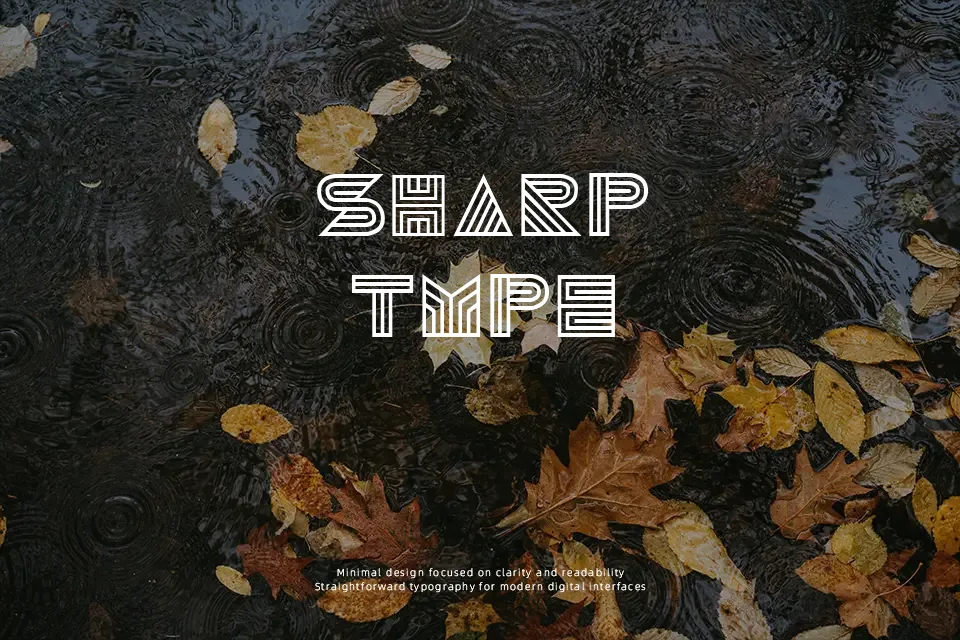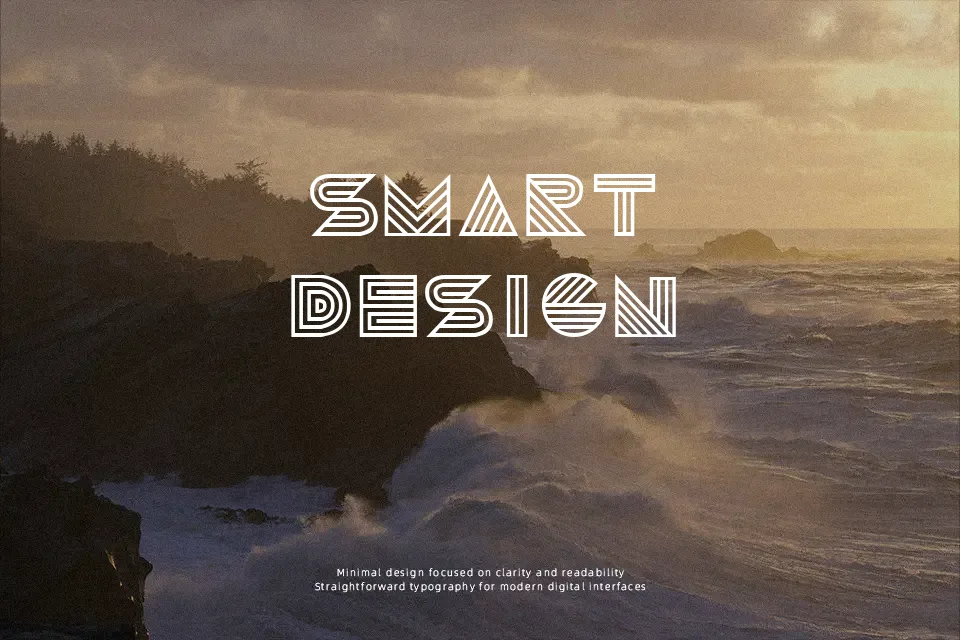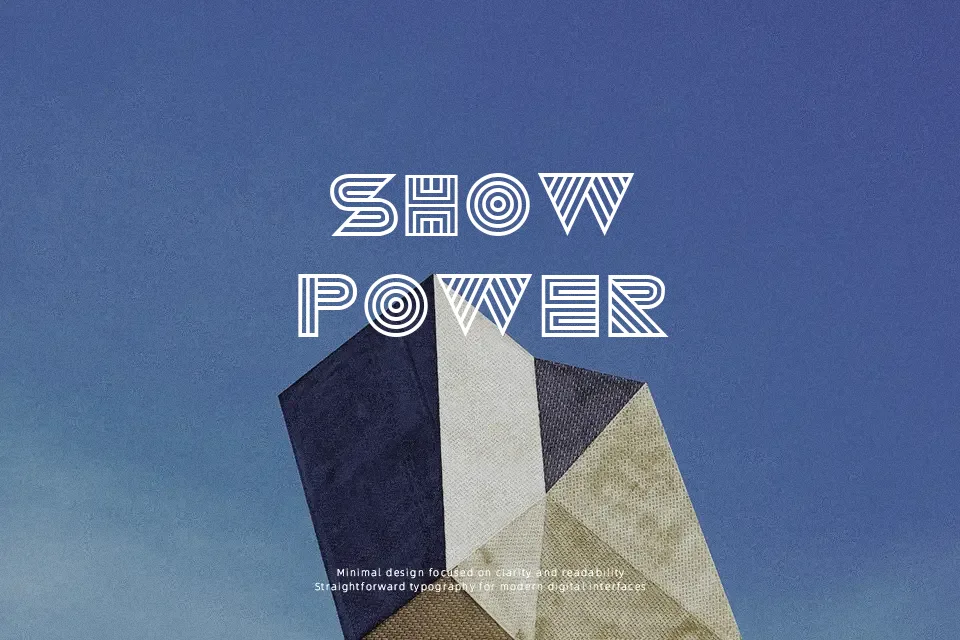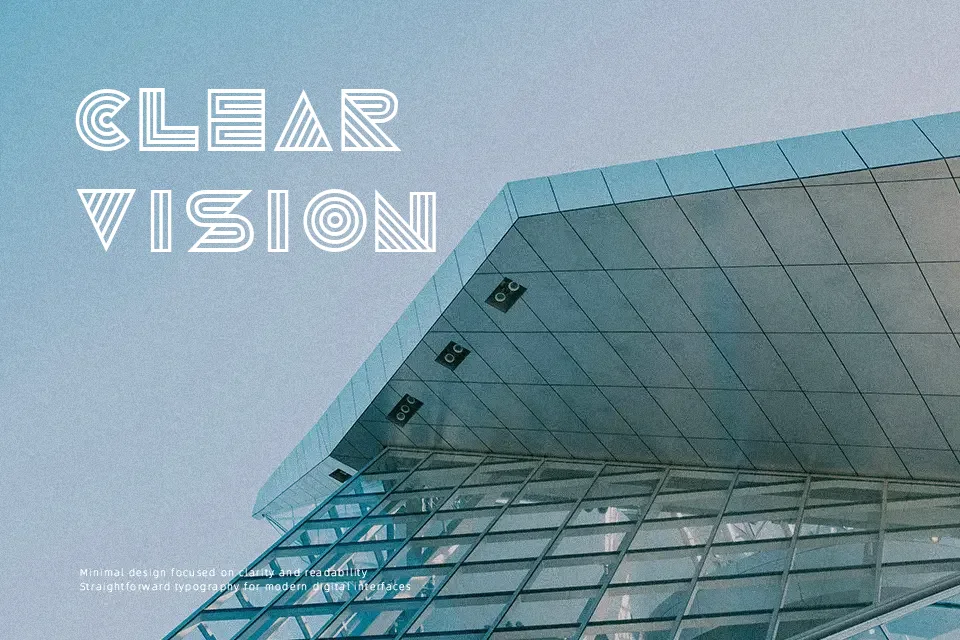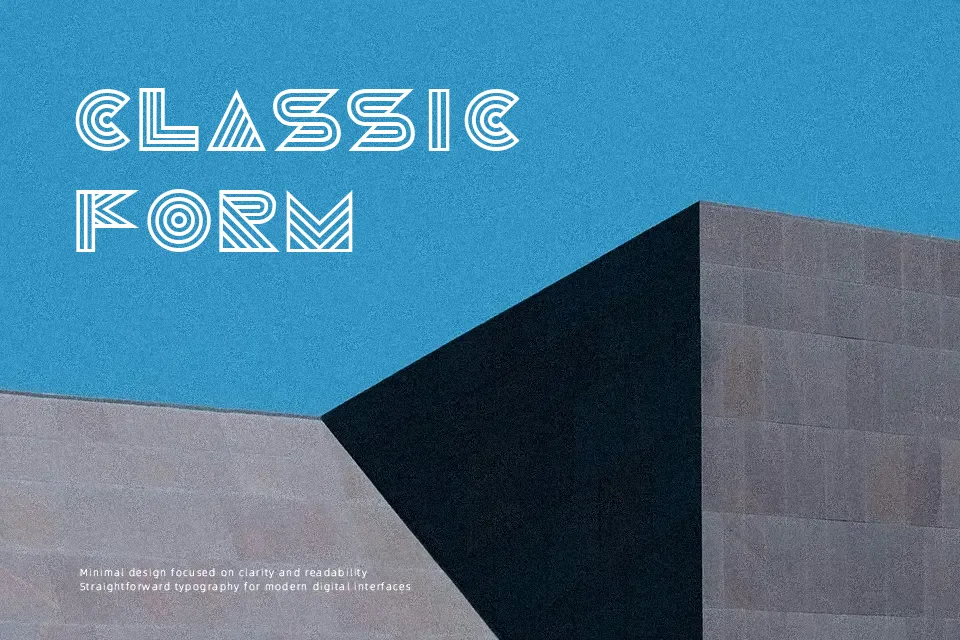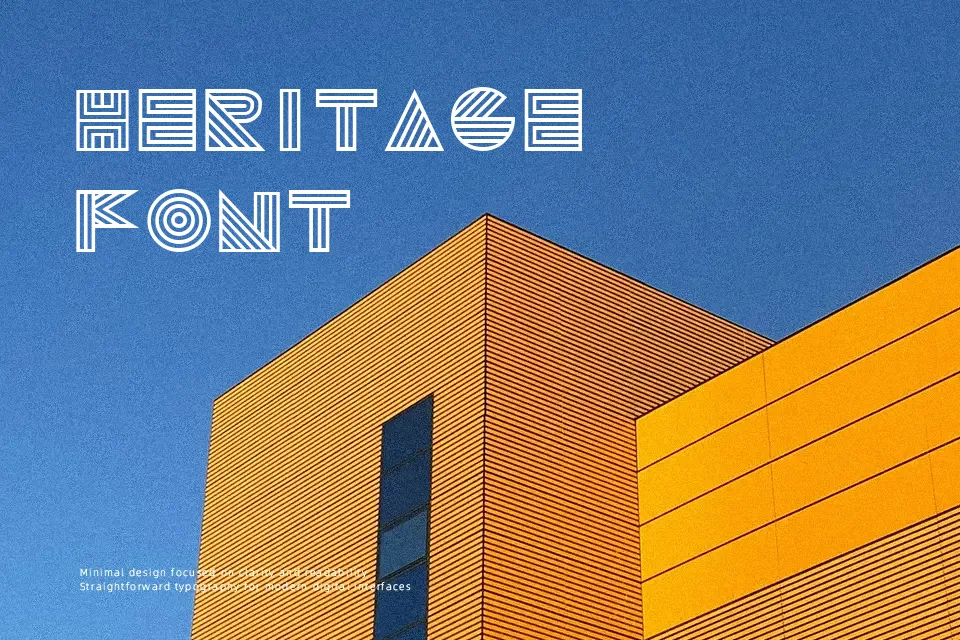
Talie Font
Talie Font is an all-caps decorative display typeface built from nested parallel strokes that produce an energetic multiline effect across its geometric forms. The consistent linear thickness and open character spacing help the letterforms retain definition when set at generous sizes. Because the parallel outlines generate optical vibration as scale decreases, the design remains legible exclusively in prominent titling rather than extended reading environments. Its rigid geometric architecture provides immediate graphic presence for music posters, apparel graphics, and packaging labels. Complex inline stroke repetition significantly limits reading comfort across compact text blocks. [luc.devroye](https://luc.devroye.org/fonts-46914.html)
Best For: music event flyers, electronic album artwork, streetwear apparel graphics, large display banners
Not Ideal For: continuous reading passages, small mobile interfaces, dense book typography, legal disclaimers
Perfect for branding, headline, and music, with a bold and decorative style.